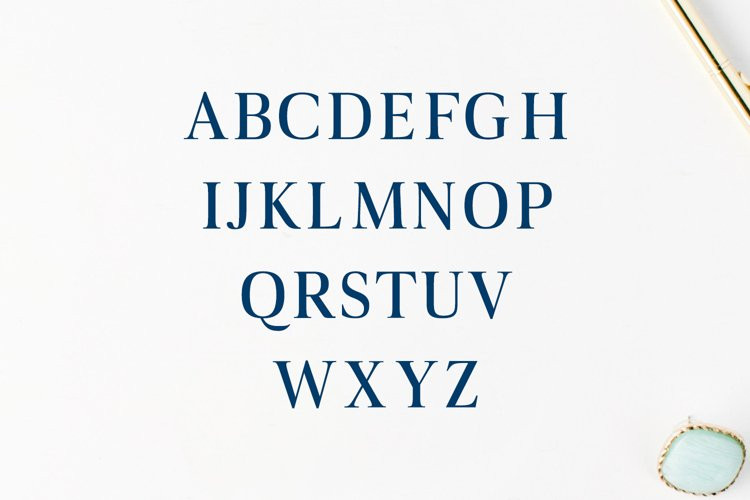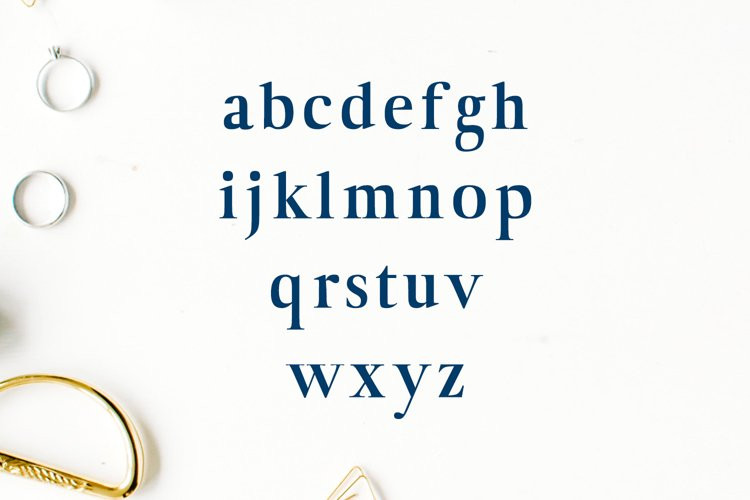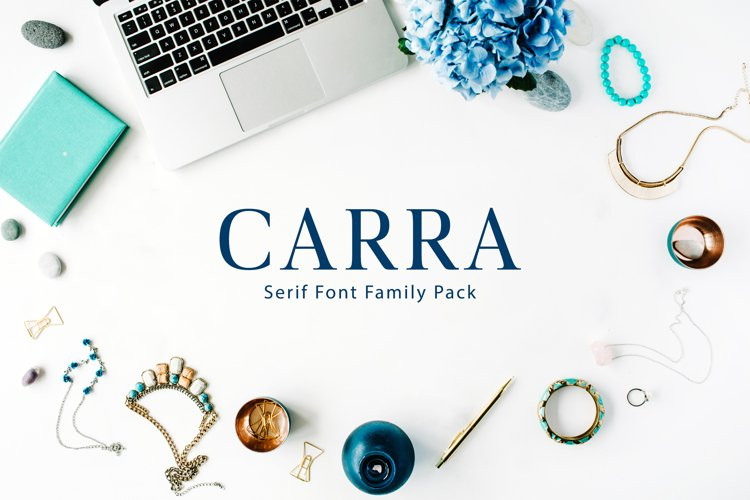
Carra Font
Carra FontCarra Serif Typeface is a minimal clean serif font family, which contains 3 weights and It features unique and modern serif look and feel. Perfect for gorgeous logos, titles, web layouts and branding. It looks gorgeous in all caps with a wide-set spacing if you want to try a classy look, or beautiful on its own in capital and lowercase letters for something completely timeless.